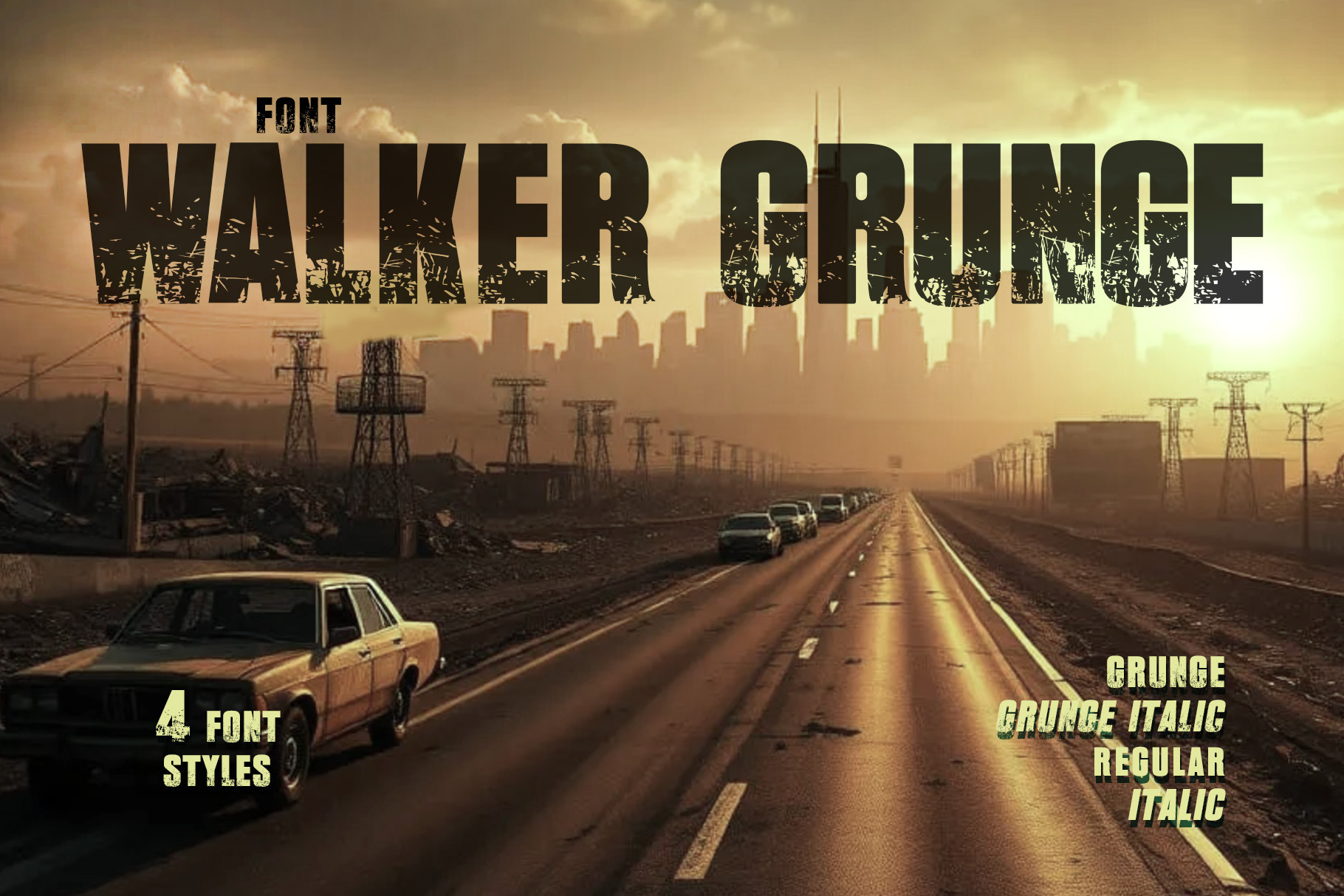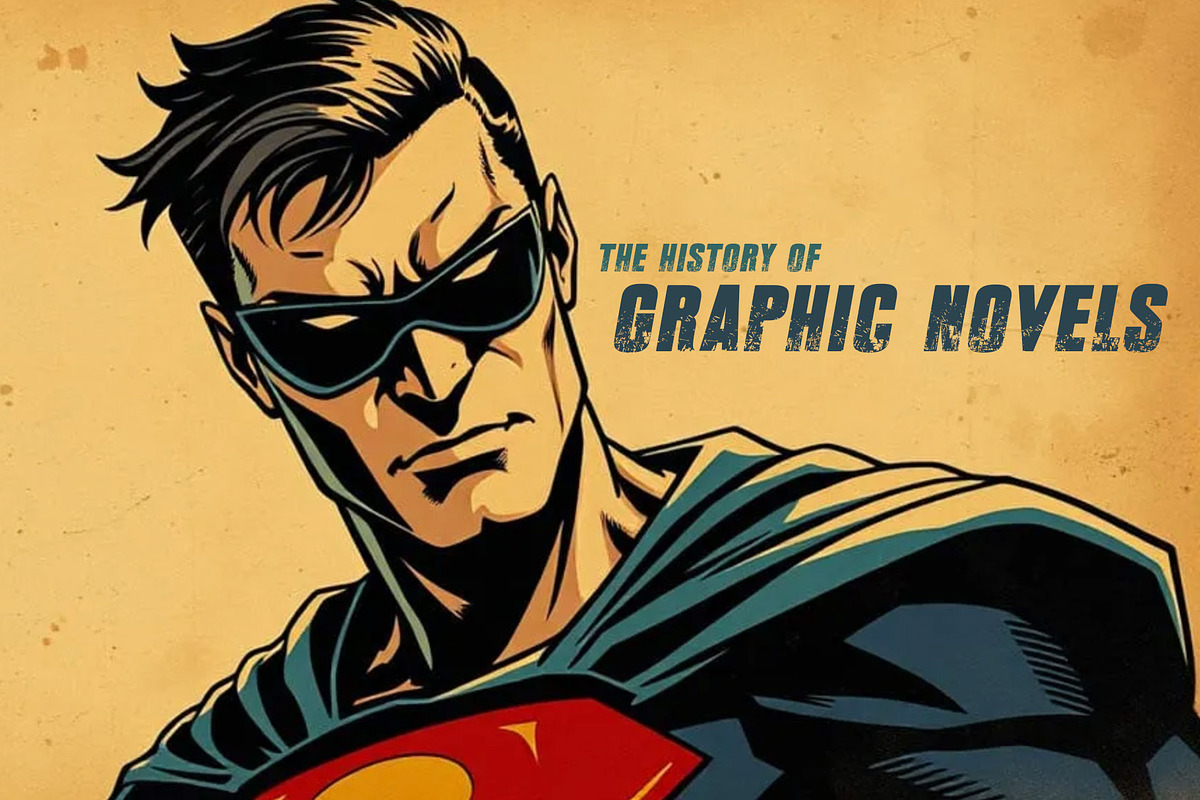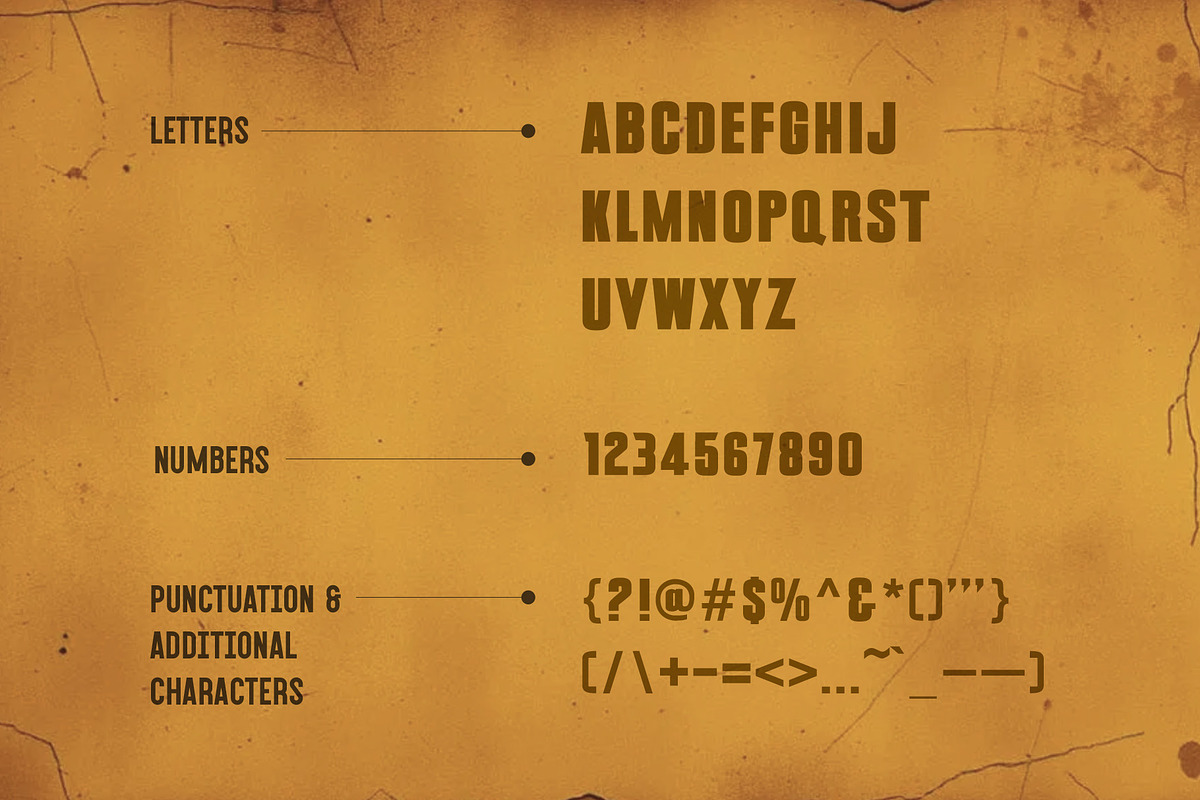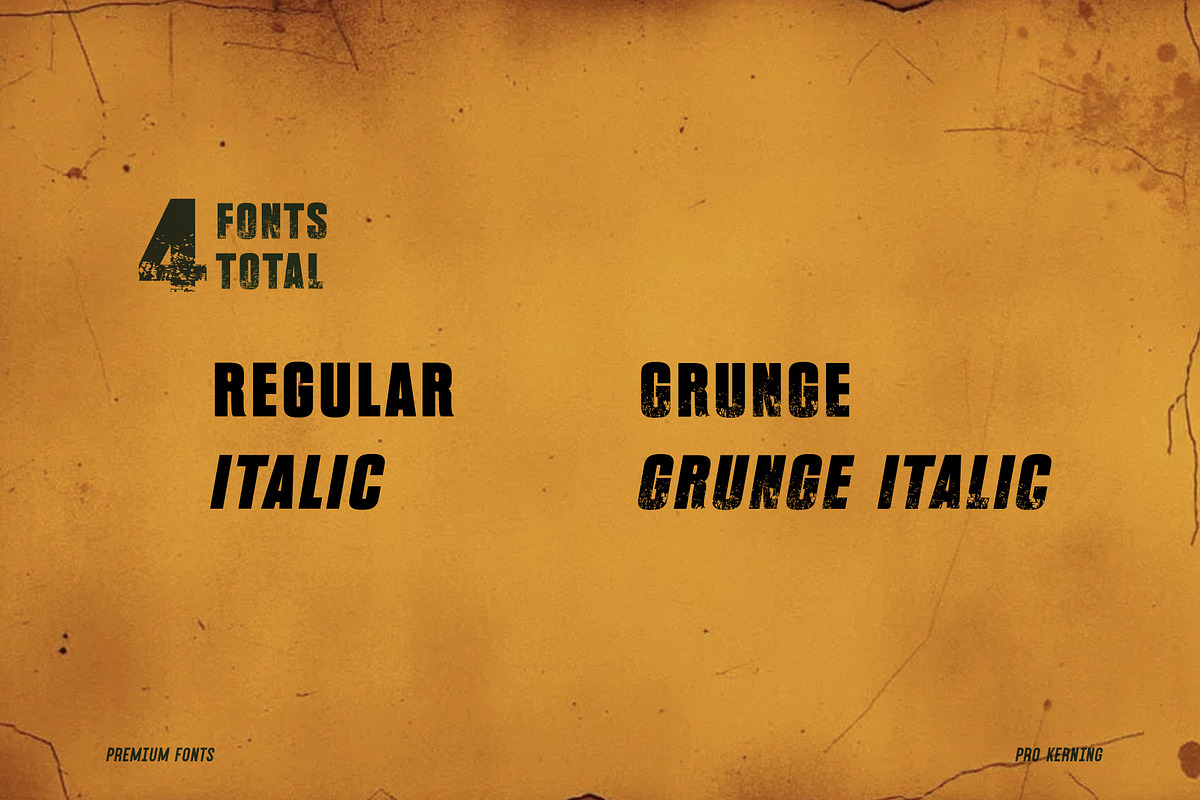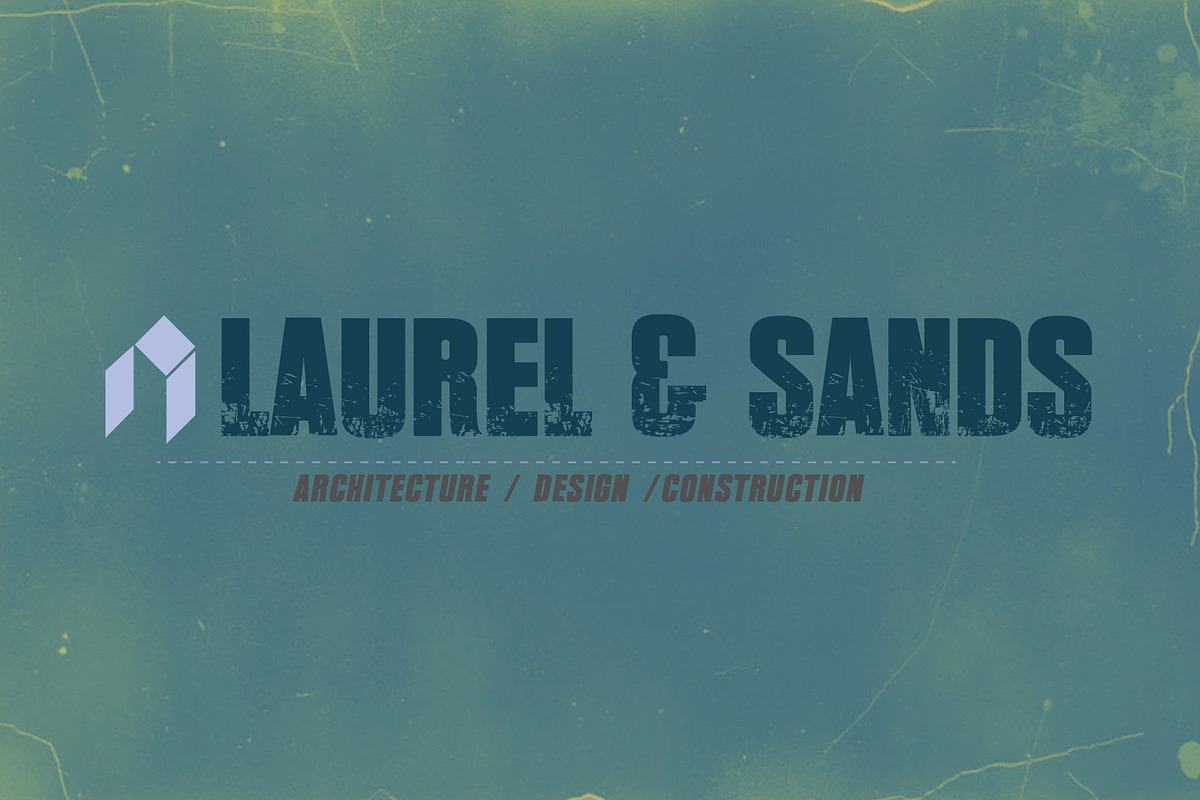
Walker: Walking Dead Style Sans Font
WALKER is a bold, gritty typeface inspired by the raw, distressed look of horror and survival themes. Perfect for capturing the eerie, apocalyptic vibe seen in The Walking Dead posters, it combines rugged textures with sharp, dramatic edges. Ideal for movie titles, posters, and branding, Walker evokes tension and unease while maintaining legibility. Whether you’re designing for horror, thriller, or post-apocalyptic genres, this font delivers a hauntingly powerful visual impact.
Styles:
- Grunge
- Grunge Italic
- Italic